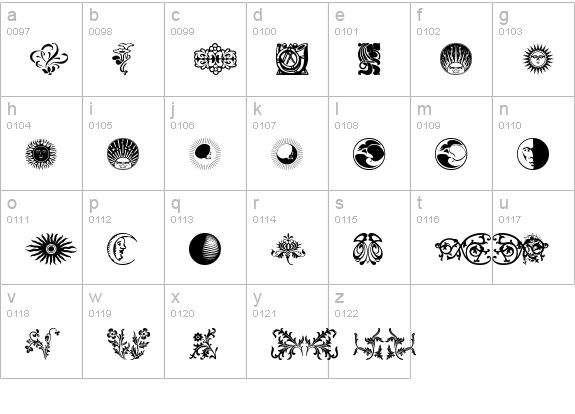
Ornamental Elements II font is a stunning display typeface that exudes elegance and sophistication. With intricate details and ornate flourishes, this font is perfect for adding a touch of luxury to your designs. Whether you're working on invitations, packaging, or branding projects, Ornamental Elements II will elevate your creations to the next level. The beauty of Ornamental Elements II font lies in its versatility and timeless appeal. It can be used for a wide range of design projects, from wedding invitations to restaurant menus. The ornate elements of this font will add a touch of glamour and refinement to any design. And the best part? Ornamental Elements II font is available for free download at FontsMarket.com. So go ahead and unleash your creativity with this exquisite typeface. Let Ornamental Elements II font be the jewel in your design crown, and watch your projects shine with beauty and sophistication.